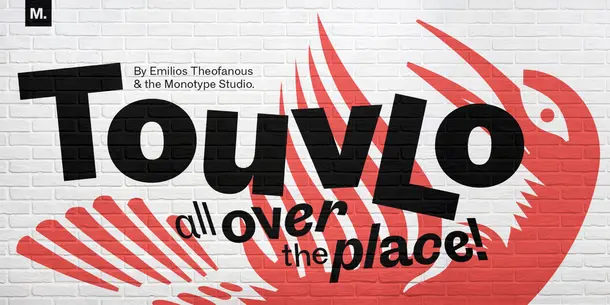
Monotype Introduces Touvlo, a New Sans Serif Typeface Offering a Modern Interpretation of Early British Grotesque Typefaces
Touvlo is Designed to be Expressive, Offering Rhythm and Unexpected Textures, Suitable for Comfortable Reading and Creating New Voices
WOBURN, Mass., Sept. 6, 2022—Monotype today introduced Touvlo™, a radiant, modern interpretation of a classic genre, skillfully capturing the spirit of early British grotesque typefaces through playful terminals and lively curves. Designed by Emilios Theofanous, Monotype Studio’s Creative Type Director, Touvlo means ‘brick’ in Theofanous’ native Greek language and is an homage to his current London home and the prominence of bricks in his city view. Suited for branding and publishing, Touvlo offers designers and creatives a new choice for a timeless and unique aesthetic.
Touvlo started with inspiration from historical sources, but quickly transformed into a personal interpretation of early grotesque designs from British foundries. Its origins can be found in “Specimens of Book and Jobbing Types; Borders, Initials, Ornaments, etc,” by The Fann Street Foundry, Sir Charles Reed and Sons, Ltd., London: 1905. The grotesque italic designs in this book follow a more calligraphic style than the slanted versions we expect to see in contemporary sans serif designs. This inspired Theofanous, who extended the same design principles to the backslant styles of Touvlo. Theofanous took inspiration from the extraordinary archive of the St Bride Library, diving into more type specimens from other British foundries and exploring their graphic attitude and distinct qualities.
While Touvlo is inspired by Theofanous’ research, it is not intended as a historical revival - rather Theofanous sees the typeface as a modern and playful interpretation of the Early British Grotesque style, and a lively conversation with that era’s lasting legacy.
“Grotesque sans serifs have been a staple in printers’ toolboxes and designers’ font menus since their emergence,” says Theofanous. “In a sense, they defy time and have been used widely across regions for decades. For brands looking for a unique tone, Touvlo’s styles offer character, voice and energy that can perform across mediums and design genres, and span applications in contemporary publishing, packaging, fashion, tech, fintech and more.”
With a total of 24 weights in three styles across three variable fonts, Touvlo’s variety can perform in long text environments, display settings and can withstand complex typographic layouts. Touvlo’s weights range from thin to black, giving it an expressive edge for headlines. It offers an array of styles, from clean uprights to characterful italics and exuberant backslants. Its lyrical drop caps are the finishing touch, featuring exquisite birds and creatures inspired from ornaments found in type specimen books.
“Touvlo encapsulates the memories of my journey, from my Cypriot heritage to my life in France before moving to London,” says Theofanous. “Designed to be versatile and playful, it combines a variety of past experiences and archive influences, capturing a classic genre. Touvlo enables creatives to grasp the essence and cultural spirit of this classic genre reimagined for contemporary use.”